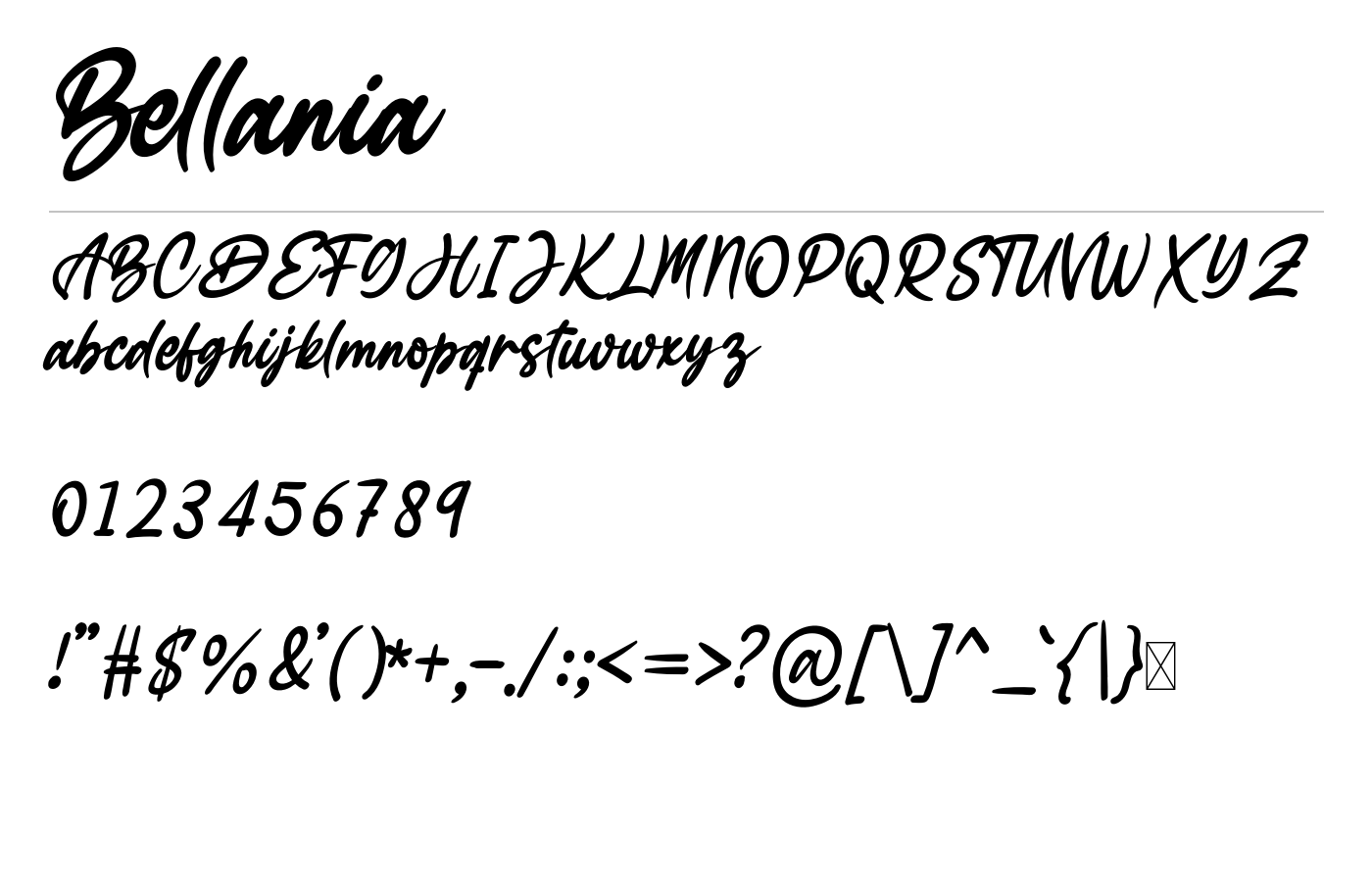
Bellania is a lively script font with a bold, brush-like stroke that conveys a friendly and energetic personality. Its smooth, flowing letterforms with moderate contrast and casual style make it perfect for creative branding, invitations, and playful headlines. This font works well where a personal, vibrant touch is needed to capture attention and express warmth.
Bellania Font
About Bellania Font